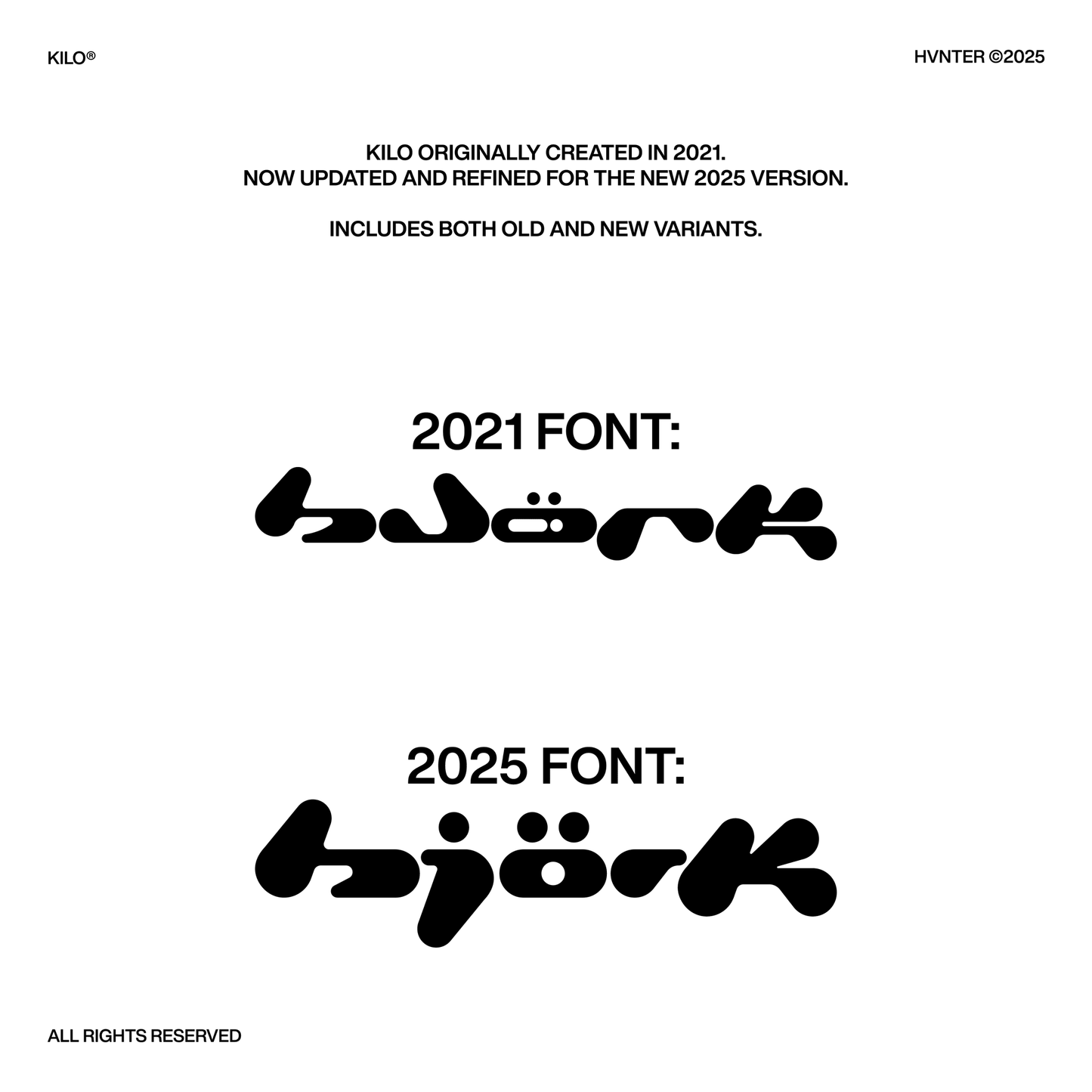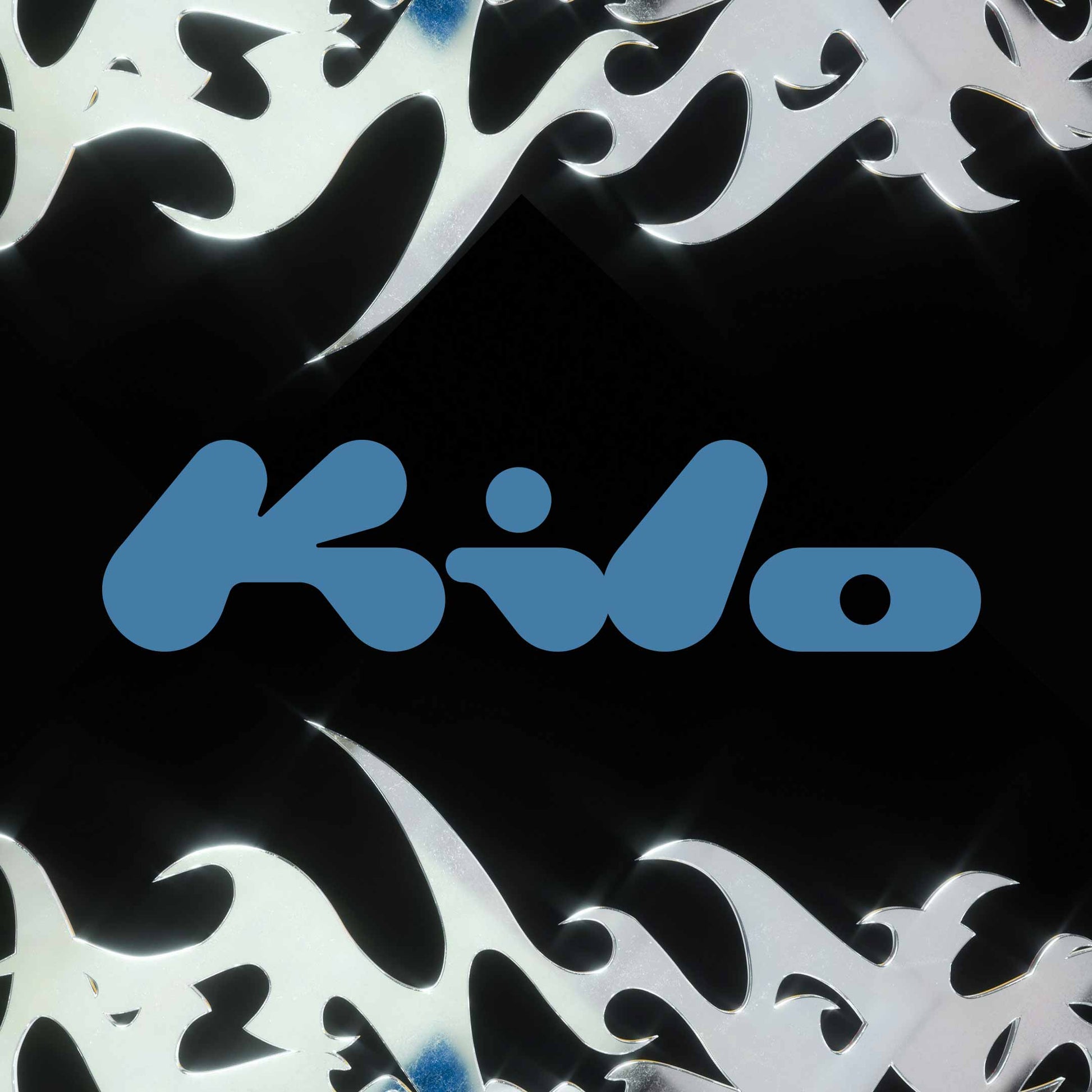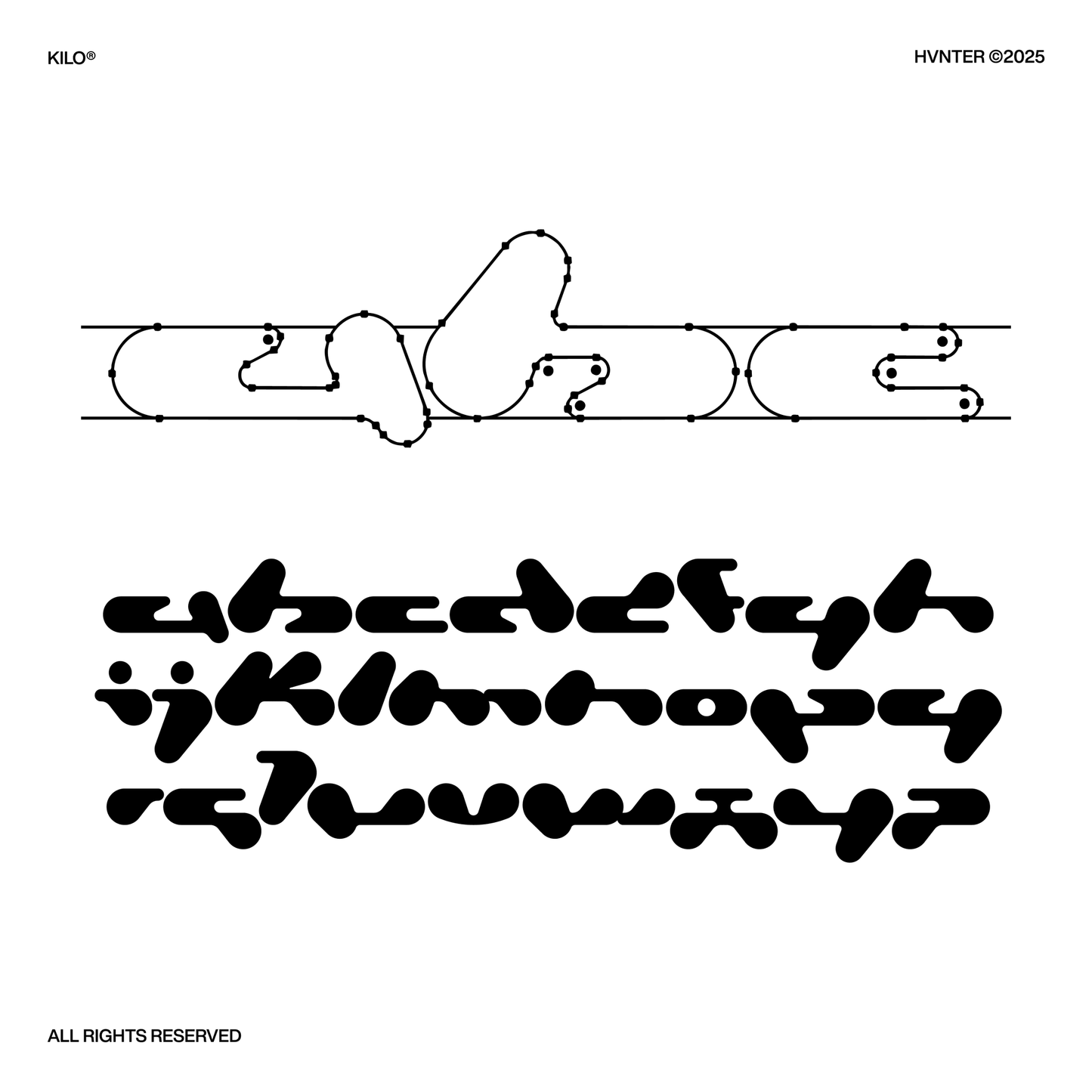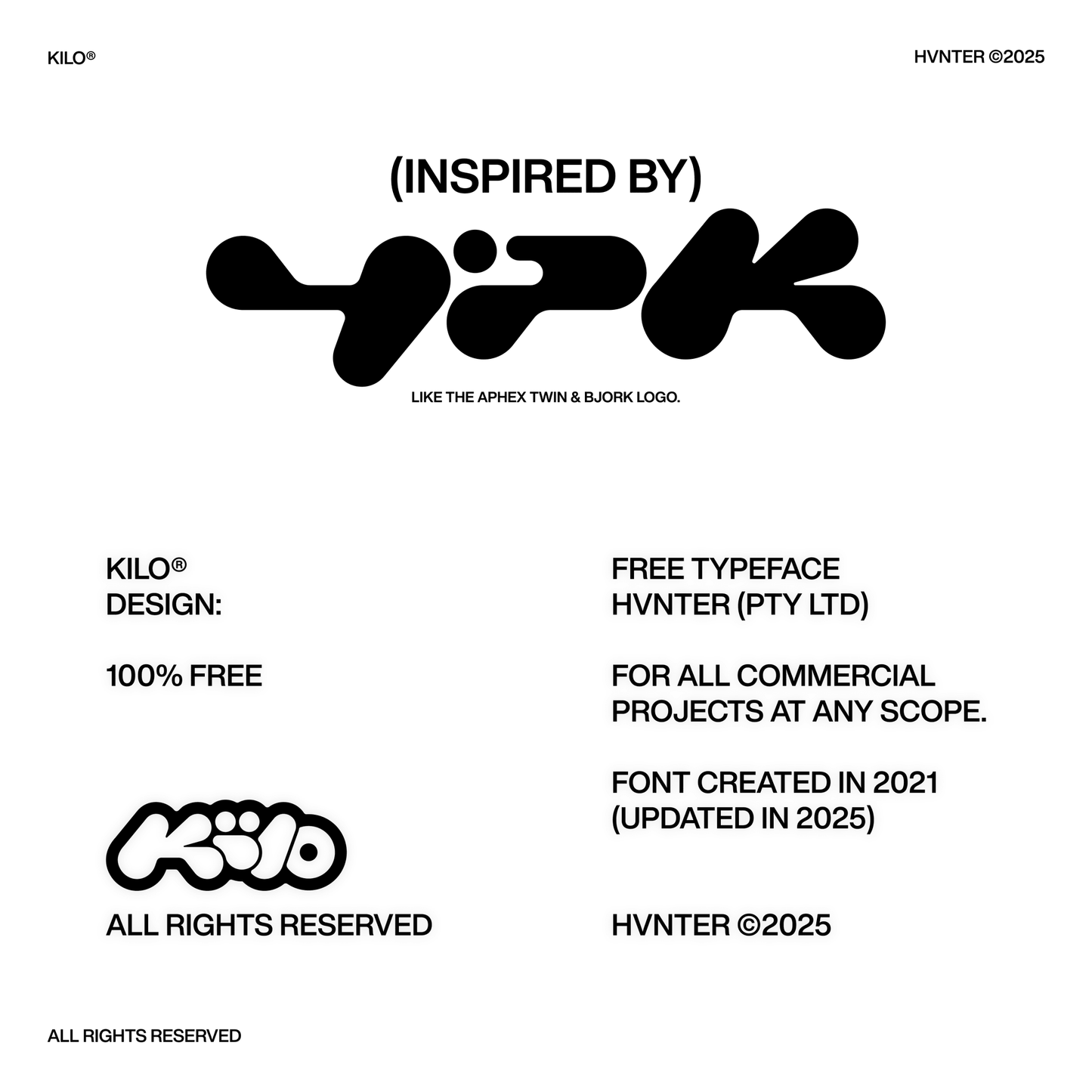
KILO — Experimental Display Typeface (Free)
KILO is a bold, experimental display typeface designed by HVNTER — built for logos, marks, and high-impact typographic statements where softness and aggression coexist.
Inspired by the iconic visual language of Aphex Twin and Björk, KILO leans into organic, inflated forms that feel almost liquid, yet intentional. Each letterform is sculpted with rounded tension, exaggerated weight, and playful distortion, making it ideal for logos, album artwork, posters, editorial layouts, and brand identities that need to stand apart immediately.
Originally created in 2021 and refined in 2025, KILO has been rebuilt for clarity, balance, and improved consistency while preserving its raw, expressive character. The result is a typeface that feels both experimental and usable — strange enough to be memorable, controlled enough to deploy professionally.
This is a statement font — designed to be seen, not whispered.